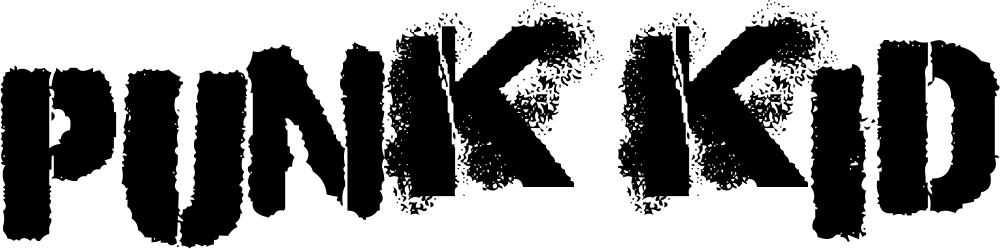
Punk Kid Font
Designed byChristopher Hansen
Punk Kid is a grunge punk font that does not support lowercase letters and looks like a spray drawing on a wall. This font conveys a dirty, cluttered, and grunge feeling to the audience, so it can be used in informal and unconventional works such as street posters and prints on clothes.